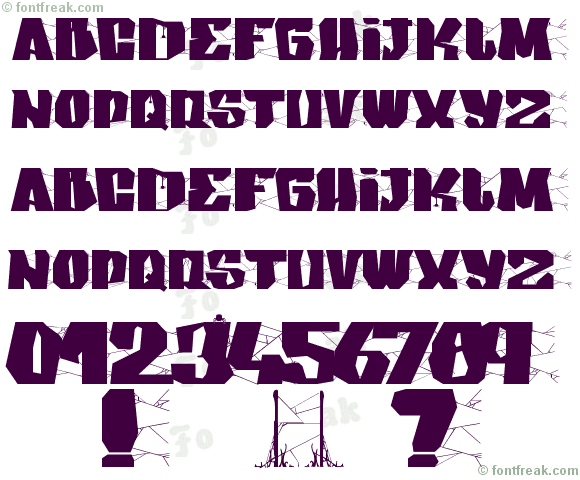
Arakphobia
About Arakphobia
Introducing the Arakphobia font by Maelle.K, a striking display typeface designed to captivate and engage. This font is categorized as a decorative style, characterized by its unique and bold letterforms that feature sharp angles and a distinctly edgy appearance. The stroke weight is varied, creating an intriguing contrast that draws the eye, while the spacing between letters is thoughtfully balanced, ensuring legibility even in more complex designs. Decorative elements, such as the spiderweb motifs incorporated into some characters, enhance the overall theme, making it a perfect choice for a range of creative projects.
Arakphobia is particularly well-suited for use cases that demand attention and a touch of personality. It shines in Halloween-themed graphics, making it ideal for spooky event flyers or haunted house advertisements. Additionally, this font could enhance movie posters, especially for horror or thriller genres, where an unsettling vibe is desired. It also works wonderfully for restaurant menus that aim to convey a quirky atmosphere, as well as for merchandise aimed at fans of the macabre, such as apparel or accessories.
The target audience for the Arakphobia font includes graphic designers looking to add a unique flair to their projects, small business owners who want to create memorable branding, and content creators seeking to stand out in a crowded digital landscape.
What sets the Arakphobia font apart is its ability to blend creativity with functionality. Its distinct style not only captures attention but also conveys a sense of personality that can elevate any design. For those interested in exploring its potential, the Arakphobia font free download provides an excellent opportunity to experiment with this visually compelling typeface. Embrace the boldness of Arakphobia and let your designs make a statement!